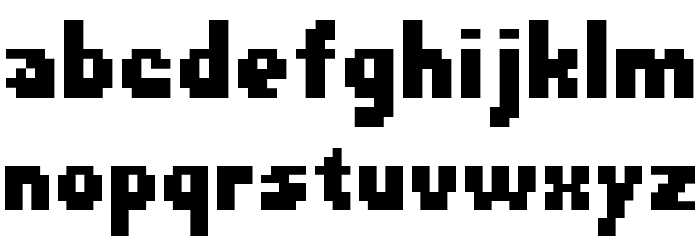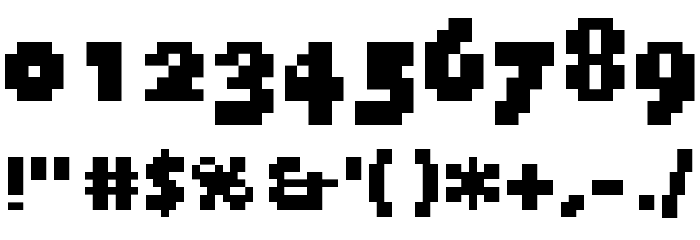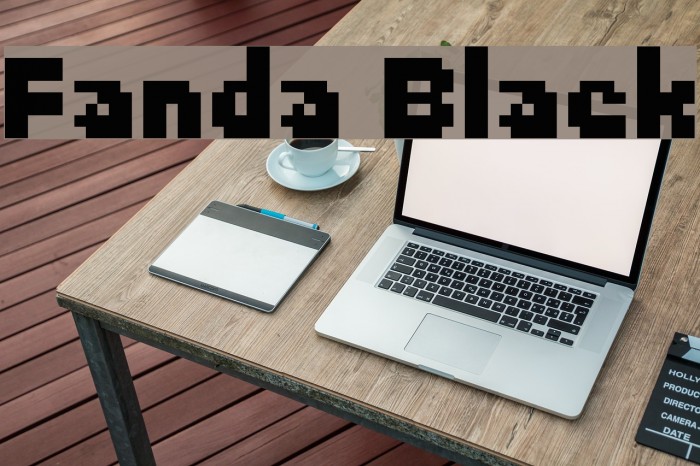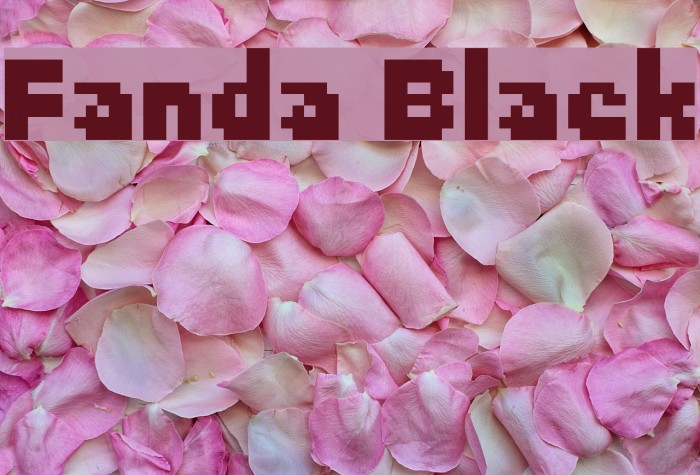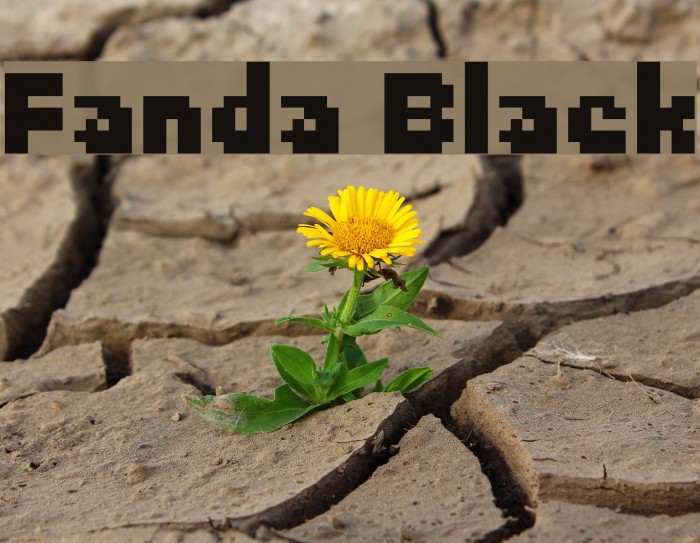
Fanda Black Font
This font features a bold, blocky style with a pixelated appearance reminiscent of early digital or video game graphics. The characters are uniformly thick, creating a strong visual impact. The uppercase and lowercase letters maintain a consistent height, contributing to a cohesive look. Numbers and special characters follow the same design principles, ensuring uniformity across all glyphs. The font's geometric structure and lack of curves give it a distinctly modern and digital feel, making it ideal for projects that require a retro or tech-inspired aesthetic.
A bold, pixelated font with a retro digital style.
- Proposed Projects: Ideal for video game design, tech-themed posters, retro branding, and digital art projects.